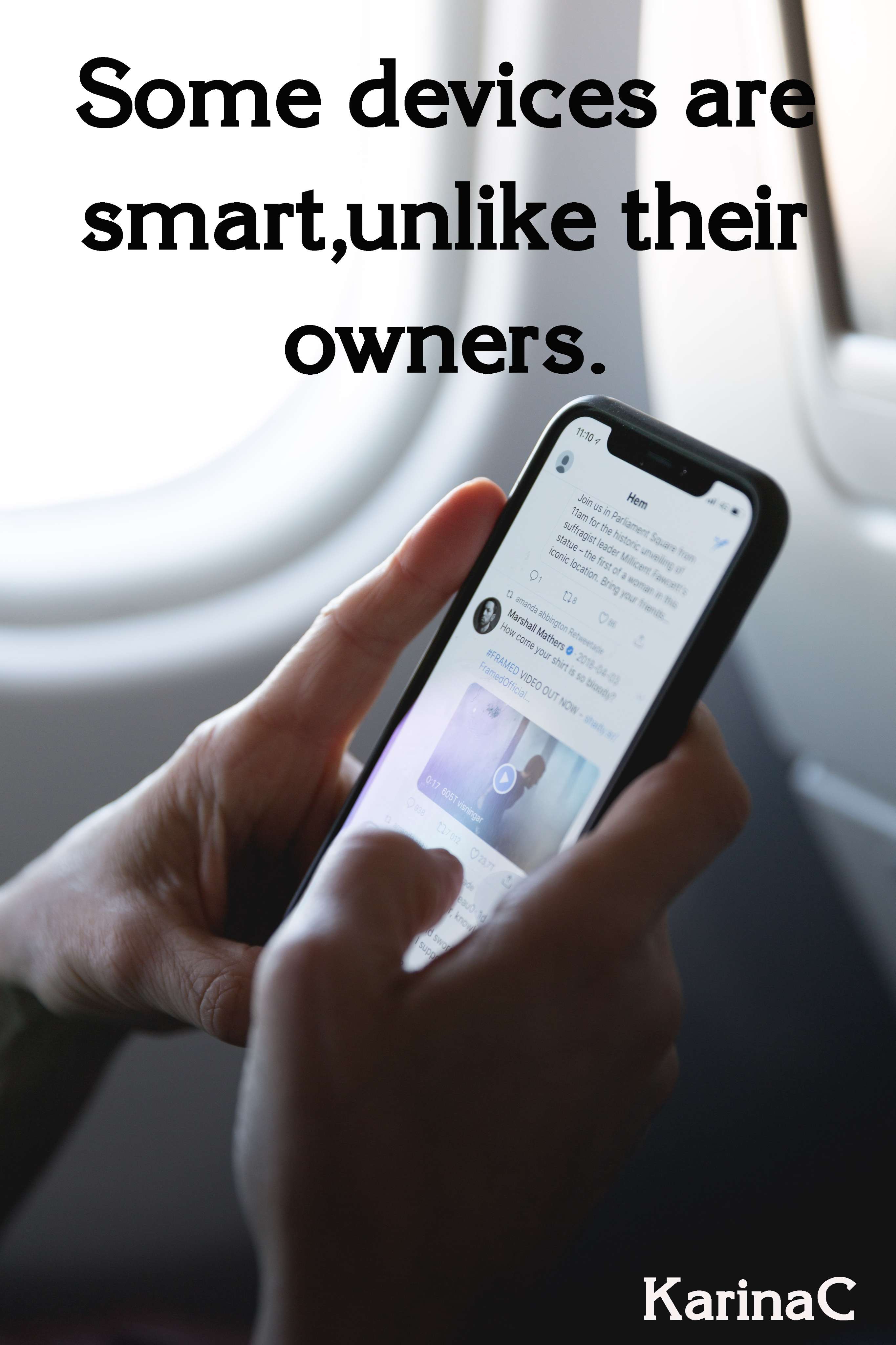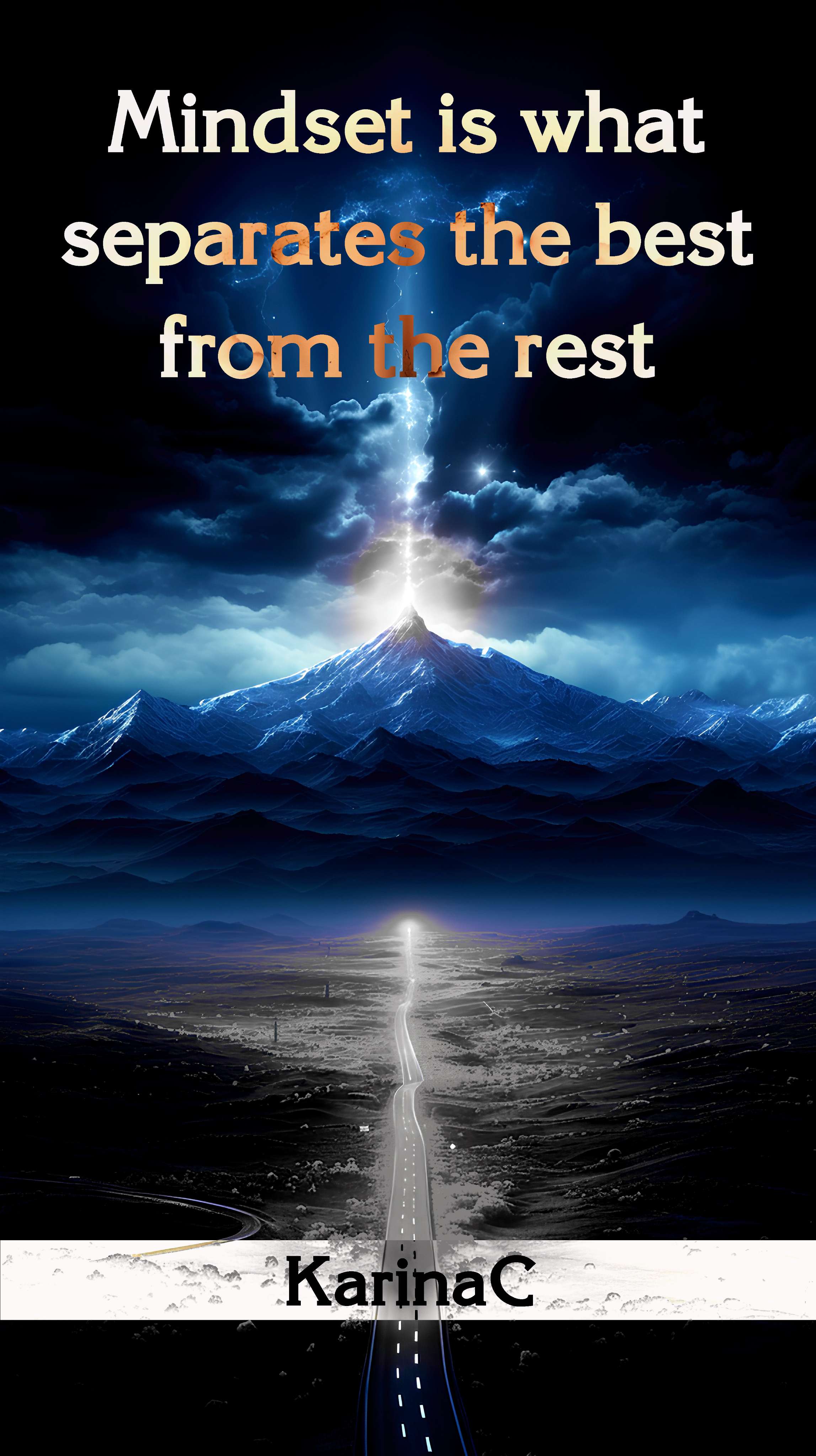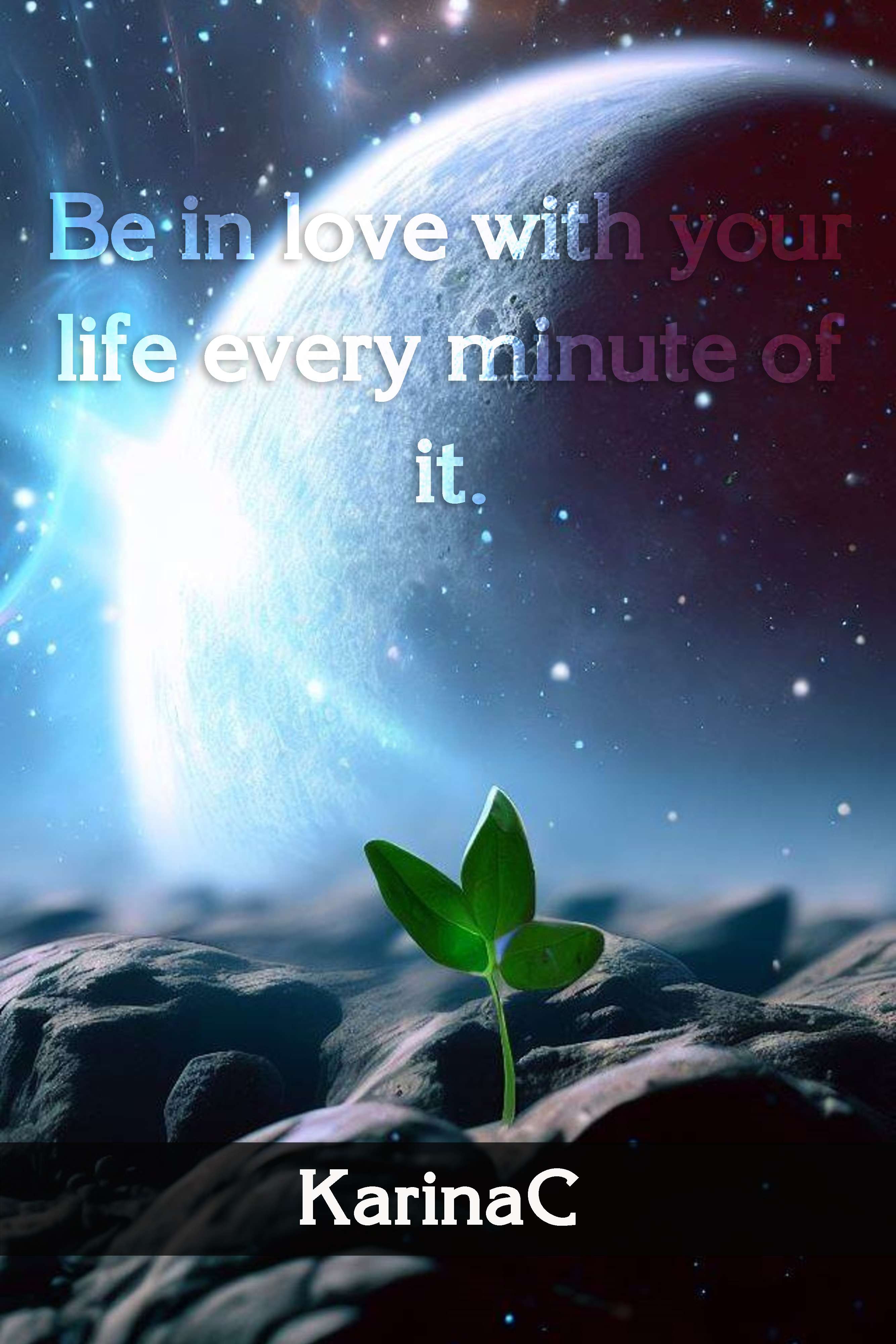
Karina Cyrillic Bold font is ideal for adding a touch of excitement to your design projects. This font variant, known as Bold, offers a bold and eye-catching style that suits a wide range of creative endeavors.